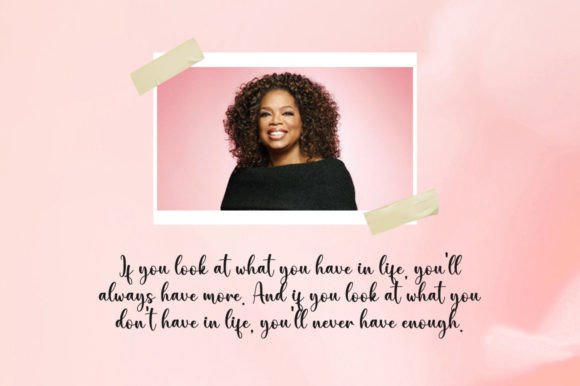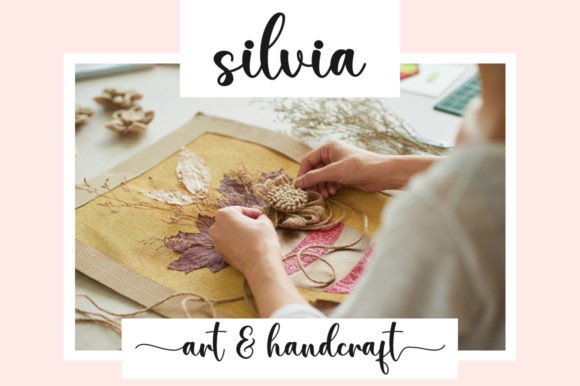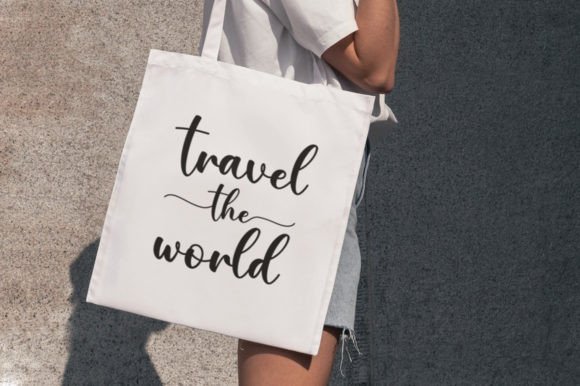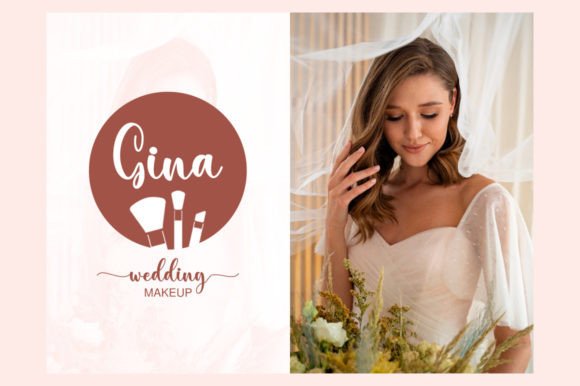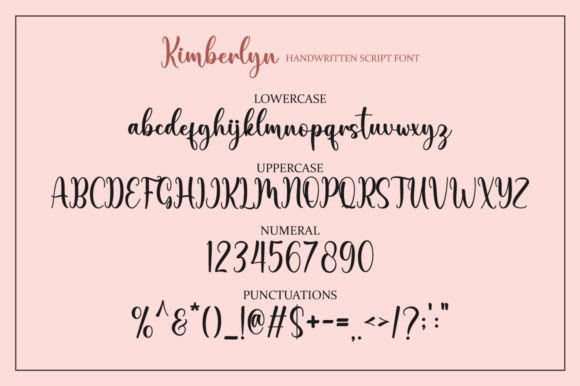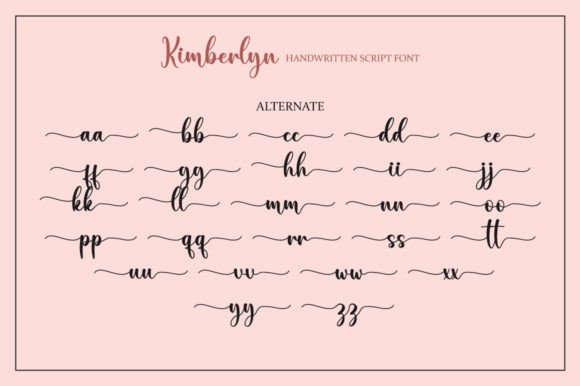
Introduction to Kimberlyn Font
Kimberlyn is a lovely and timeless handwritten font.
It is the best choice for creating eye-catching logos, branding, and quotes Kimberlyn is PUA encoded which means you can access all of the glyphs and swashes with ease.
Key Features of Kimberlyn Font
Why Choose Kimberlyn Font?
Kimberlyn Font offers exceptional quality and versatility, making it a valuable addition to your design toolkit. Whether you’re creating for personal projects or commercial use, Kimberlyn Font delivers professional results.